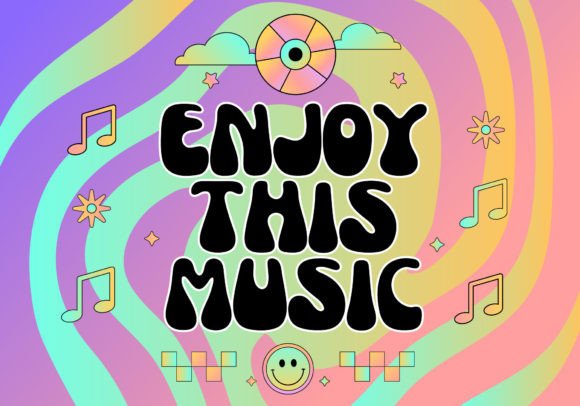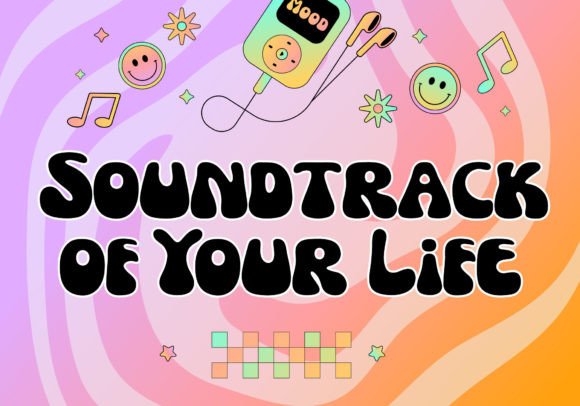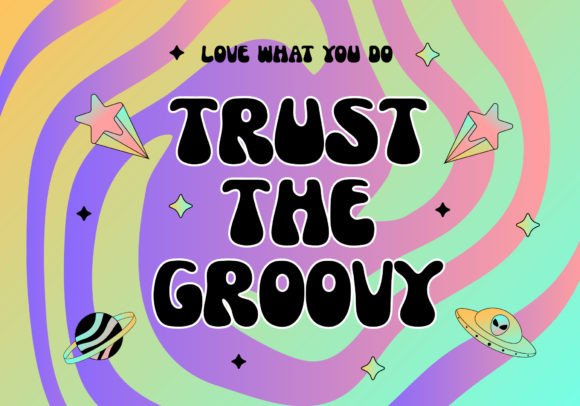
Introduction to Mommy Music Font
Do you remember that moment when you’re working on a creative project, and you need just the right font to bring it all together? The one that screams fun, funk, and retro vibes? For designers like you, the perfect font can be the difference between a good design and an amazing one. That’s where the Mommy Music Font comes in – a high-quality display font that’s sure to get your creative juices flowing.
With its stylish curves and funky styling, the Mommy Music Font is perfect for adding a touch of cool to any project. Whether you’re working on a design resource or creating a new brand identity, this font is sure to bring a blast of 70s flair to your designs. And the best part? You can download it for free, with a transparent background that makes it easy to use in any design scenario.
Key Features of Mommy Music Font
- High-quality font design suitable for creative projects, with a unique and playful style.
- Available in a transparent background option, making it easy to overlay on images or videos.
- The font is highly customizable, allowing users to adjust the size, color, and style to fit their creative project needs.
- Unique characteristics include a mix of bold and cursive elements, making it perfect for adding a touch of whimsy to any design.
Honest Review: Mommy Music Font
I recently stumbled upon the Mommy Music Font, and I must say it’s a lovely addition to any creative project. As a designer, I appreciate the unique blend of playful and elegant elements that make it stand out.
What works well: ✨ The font’s versatility is impressive, with a transparent background that allows for seamless integration with various design elements. I’ve used it for a children’s music program logo, and it turned out fantastic. The free download option is also a plus, making it an accessible design resource for designers of all levels.
Some limitations: ⚠️ While the font is high quality, it may not be suitable for all creative projects. Its playful nature makes it perfect for children’s-related designs, but it may not be the best choice for more formal or corporate projects.
Overall, I’m impressed with the Mommy Music Font, and I’d highly recommend it to designers looking for a unique and creative design resource. Just be mindful of its limitations, and you’ll be well on your way to creating stunning designs.
- Playful and elegant design elements
- Suitable for children’s-related designs
Experiment with different font sizes and styles to create visually appealing text. Use the font in combination with other design elements, such as images and graphics, to add depth and interest to your design. Consider using the font in a variety of creative contexts, such as posters, invitations, and social media graphics.
The Mommy Music Font is particularly well-suited for design projects related to music, parenting, and children’s activities. Use it to create eye-catching titles, headings, and text for your design project.